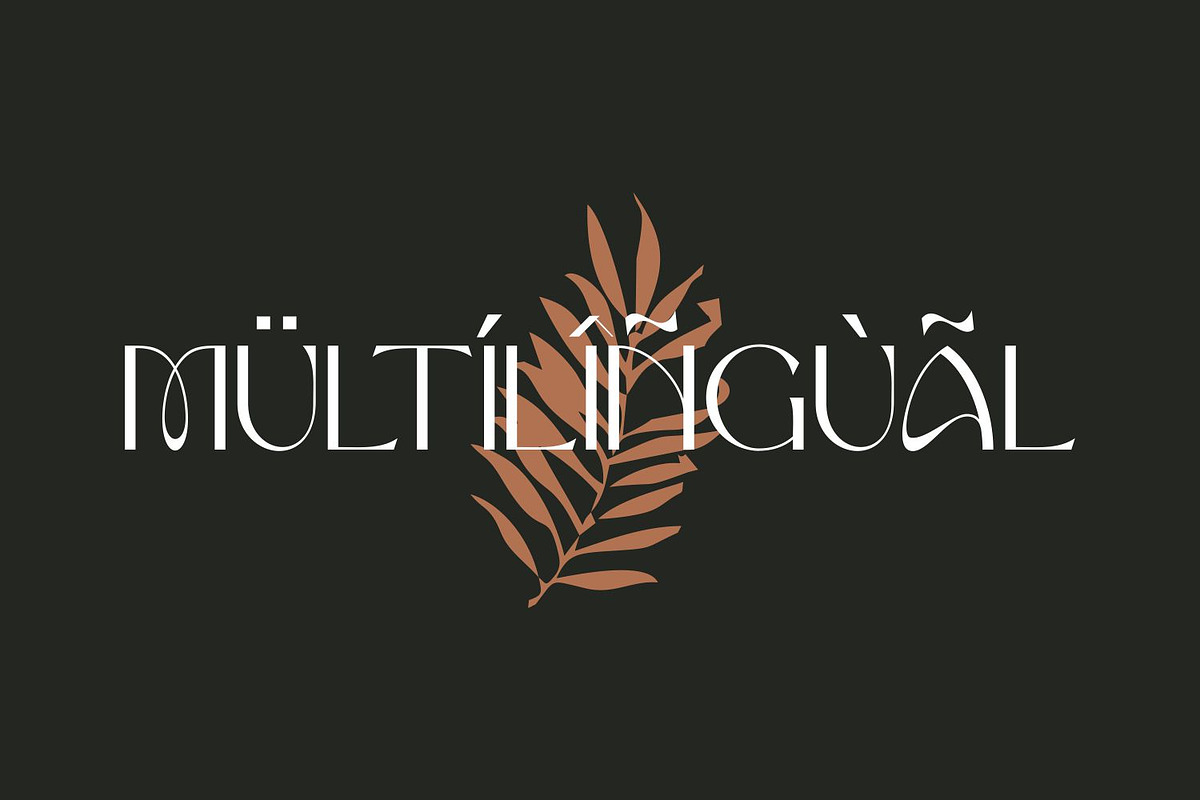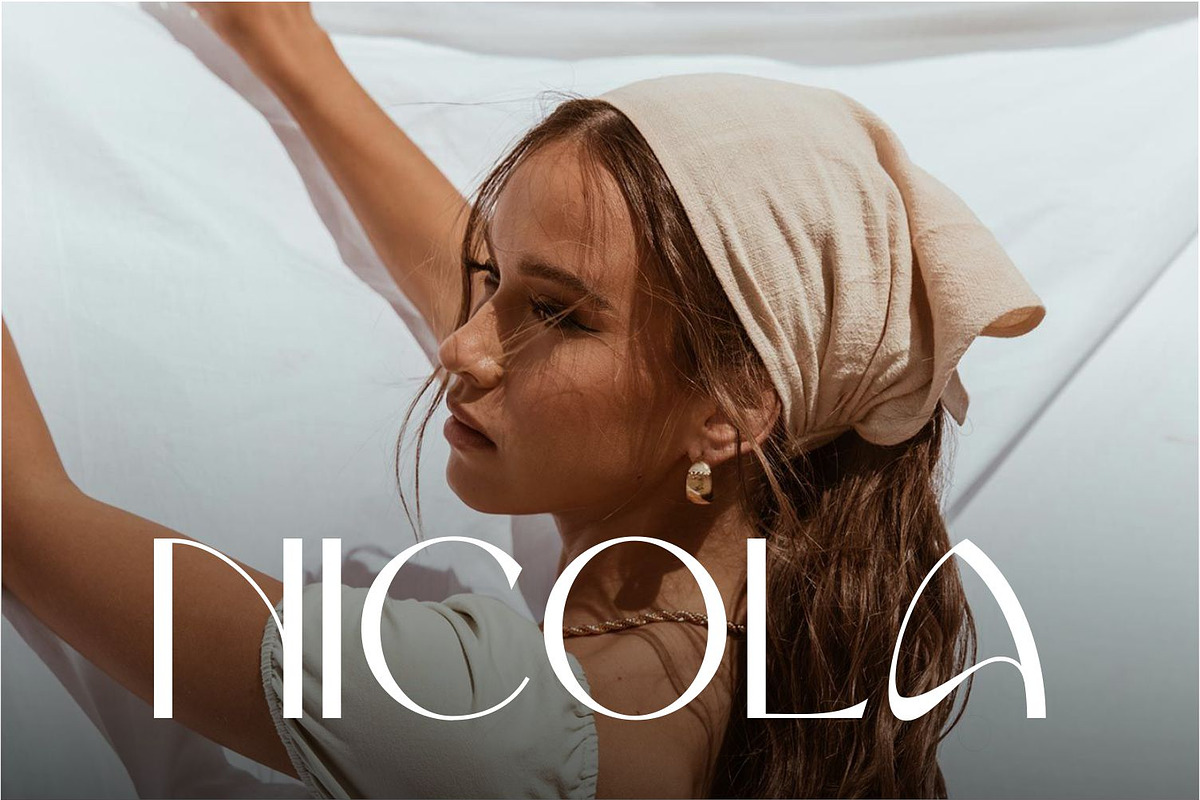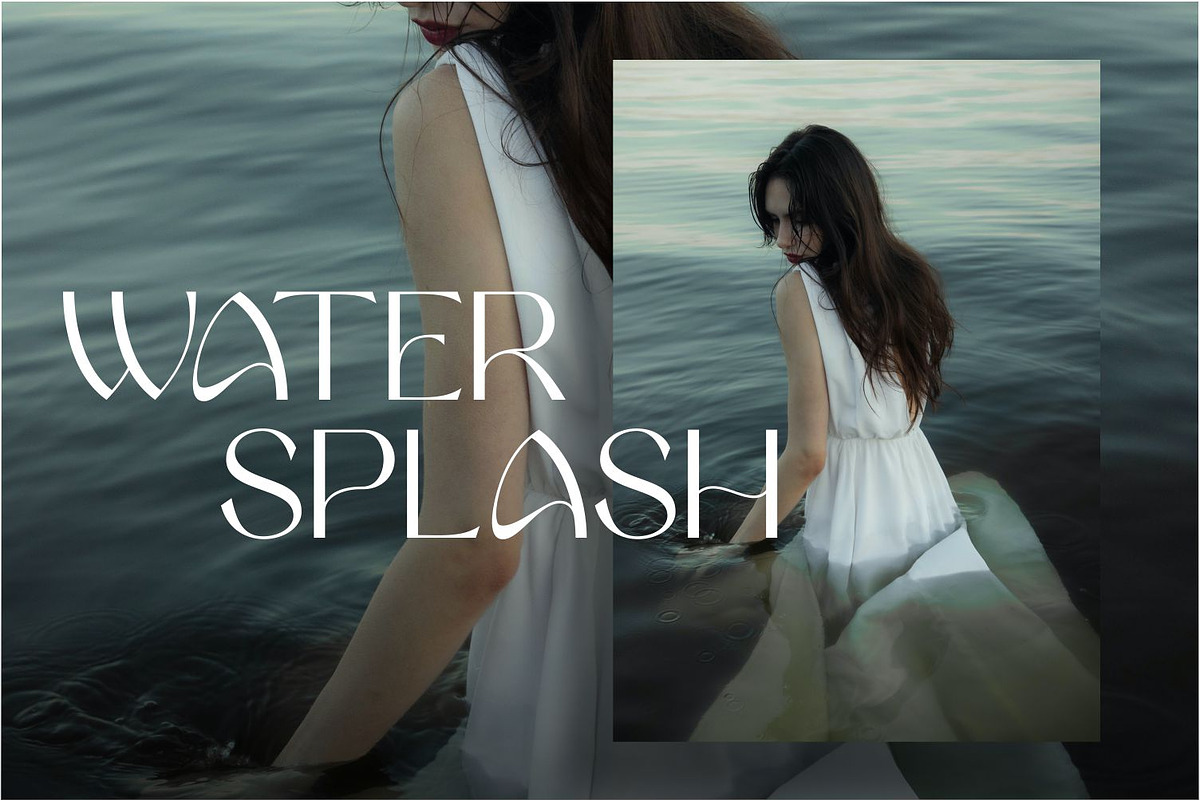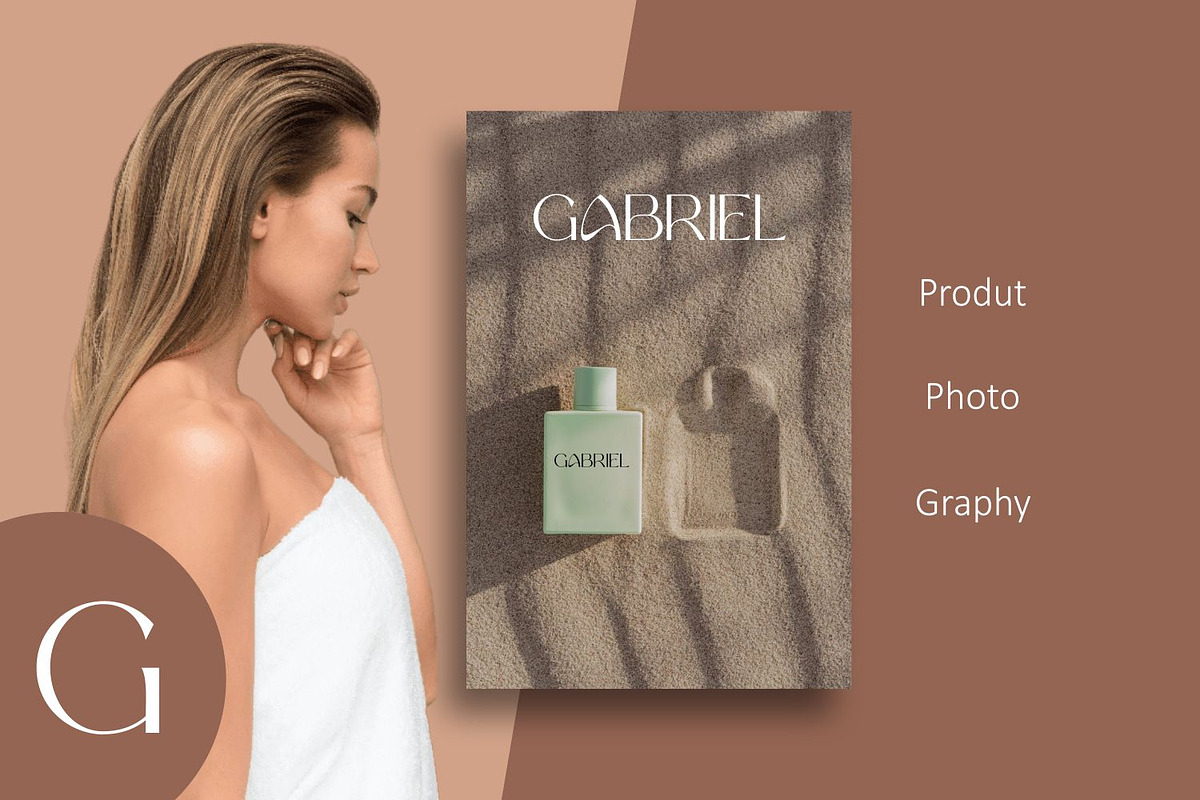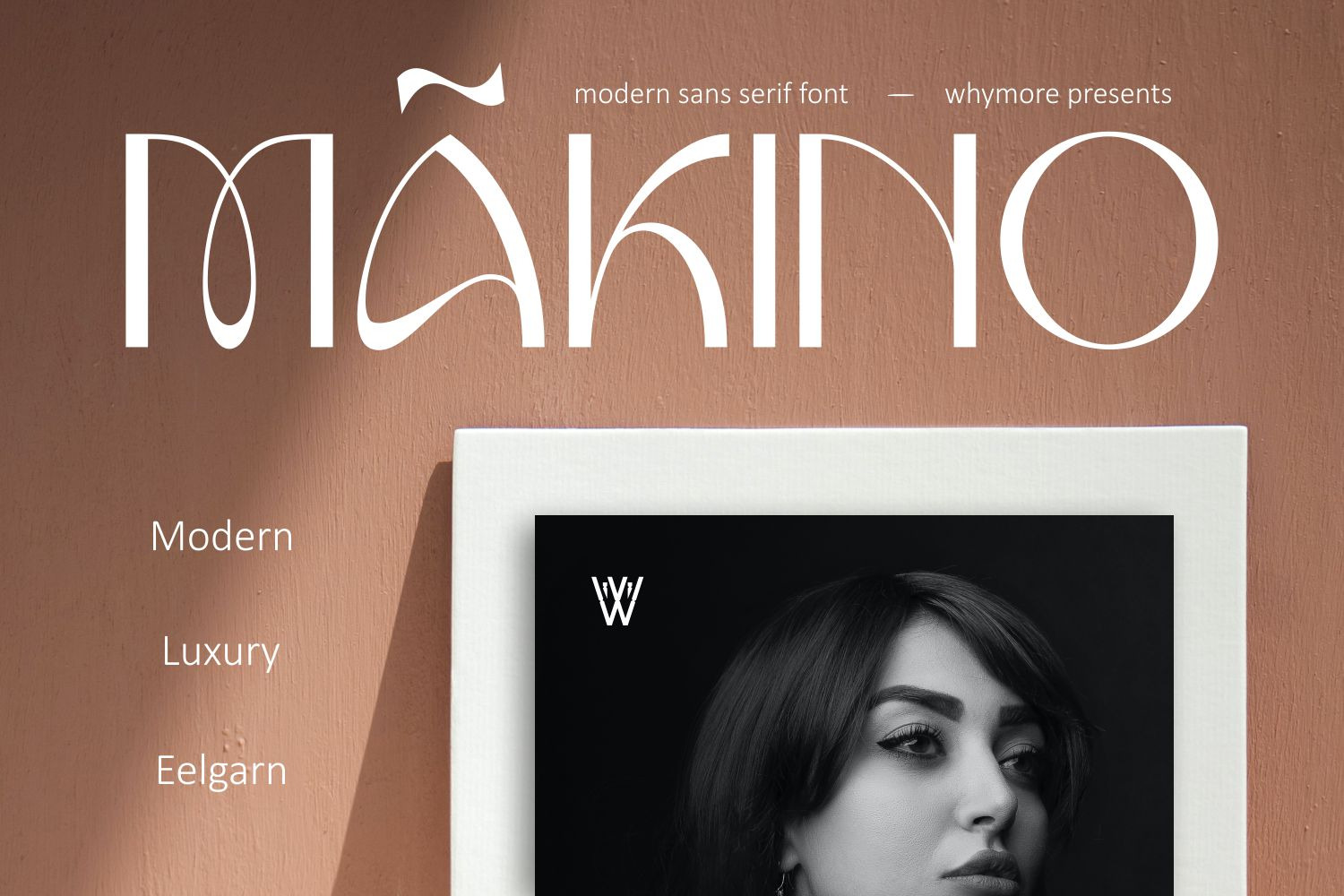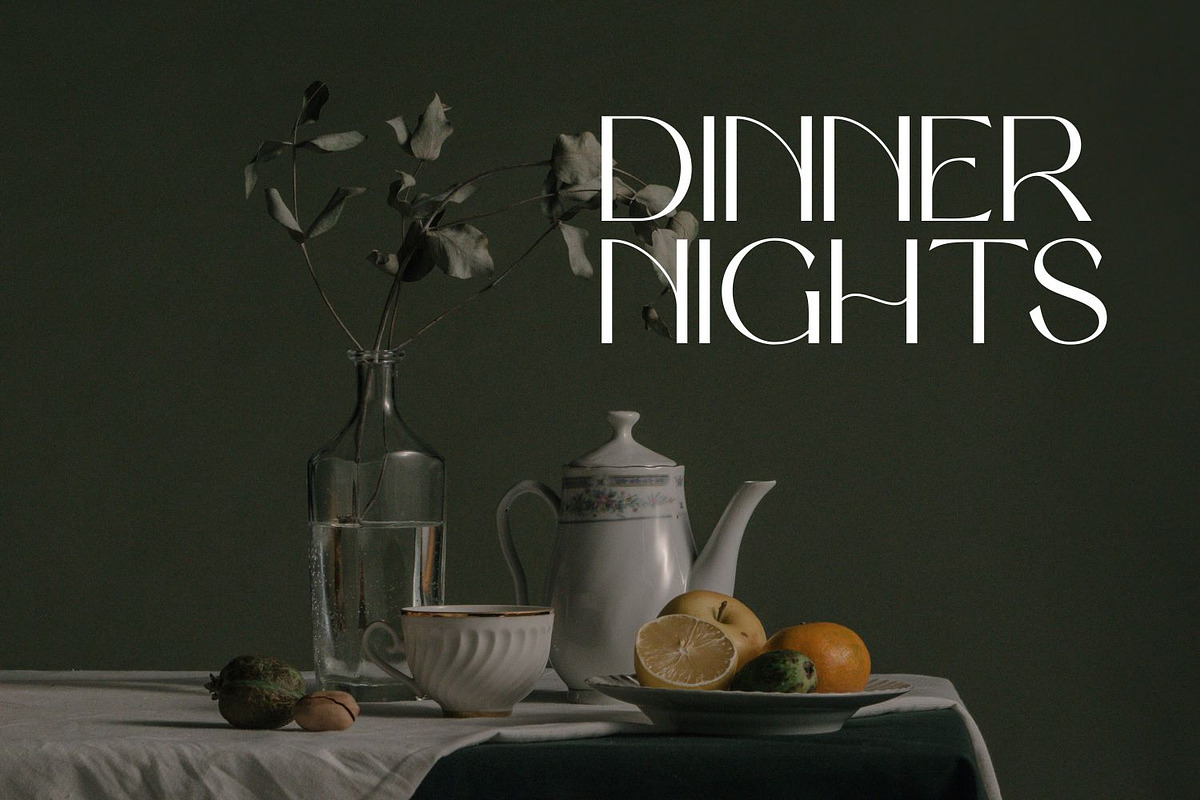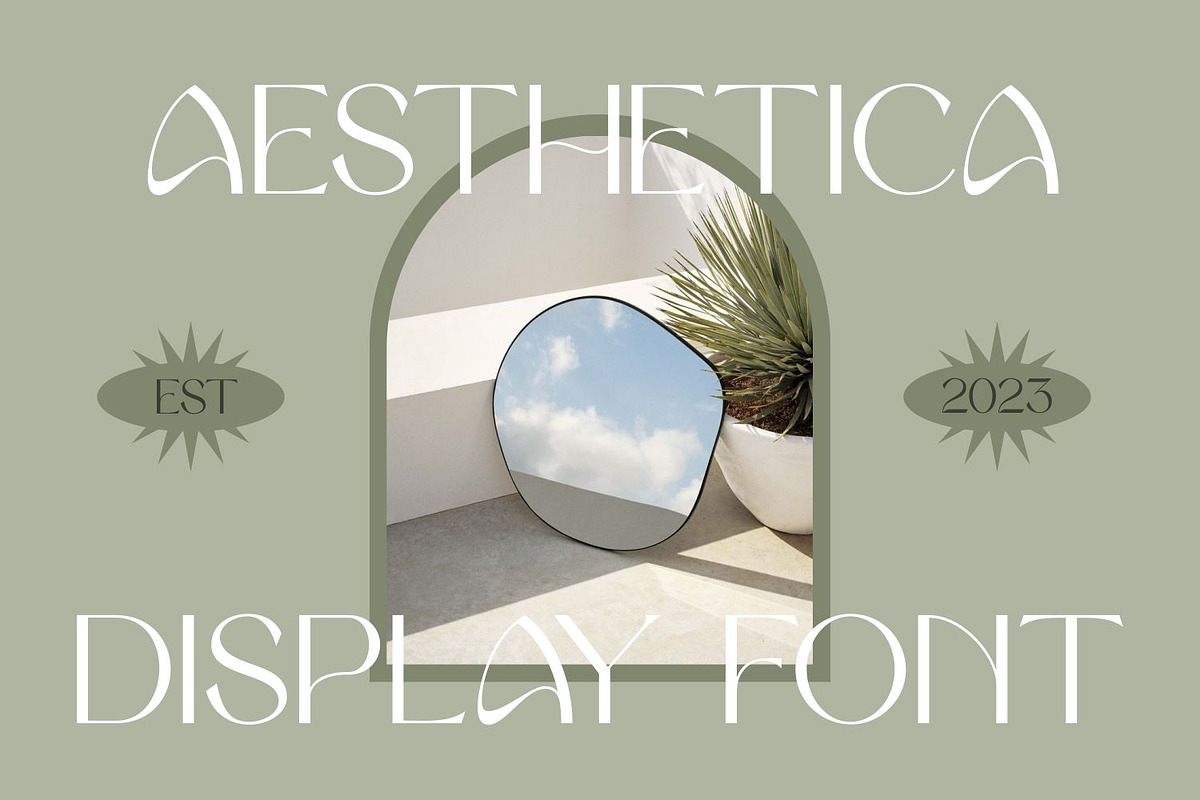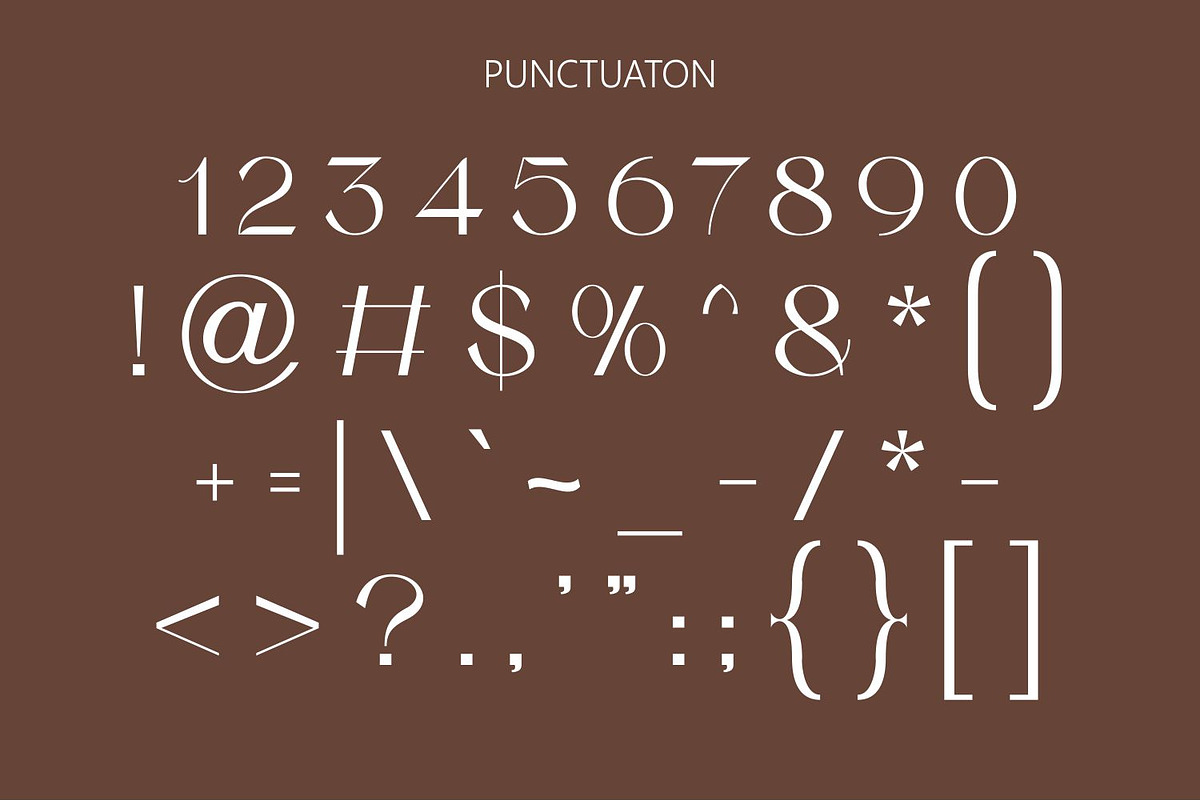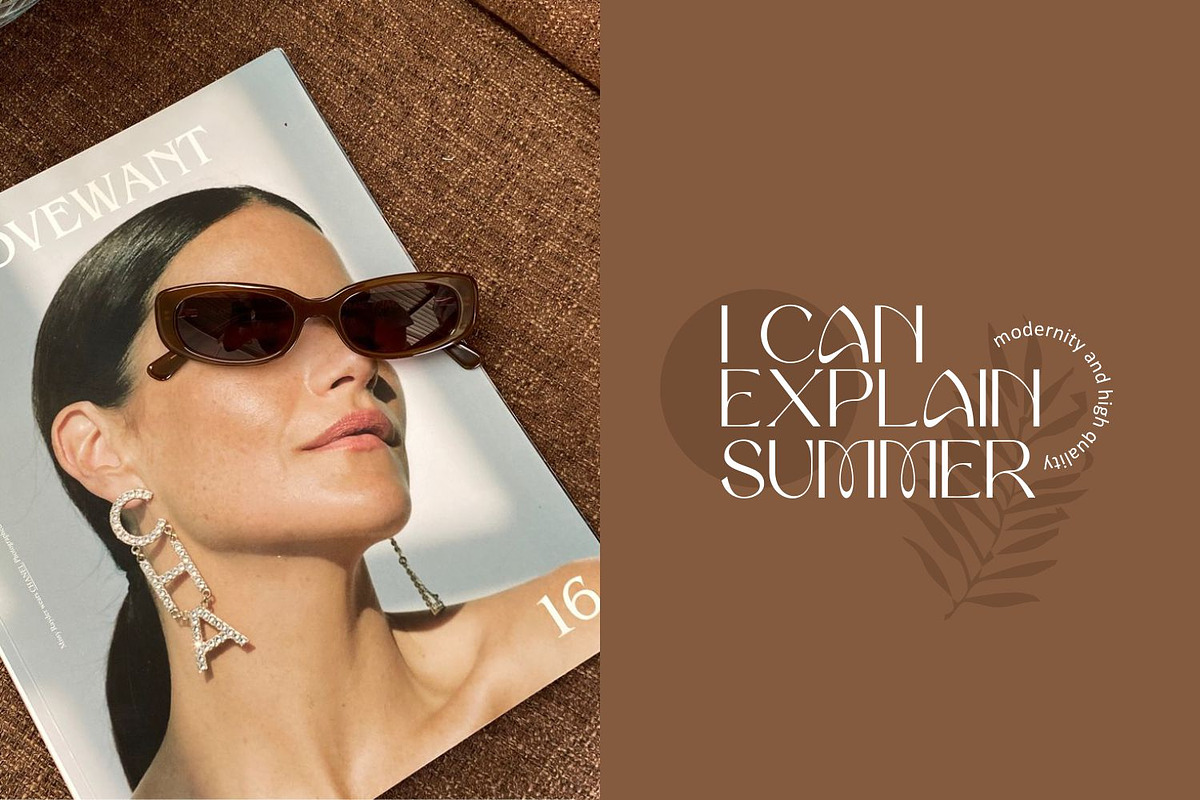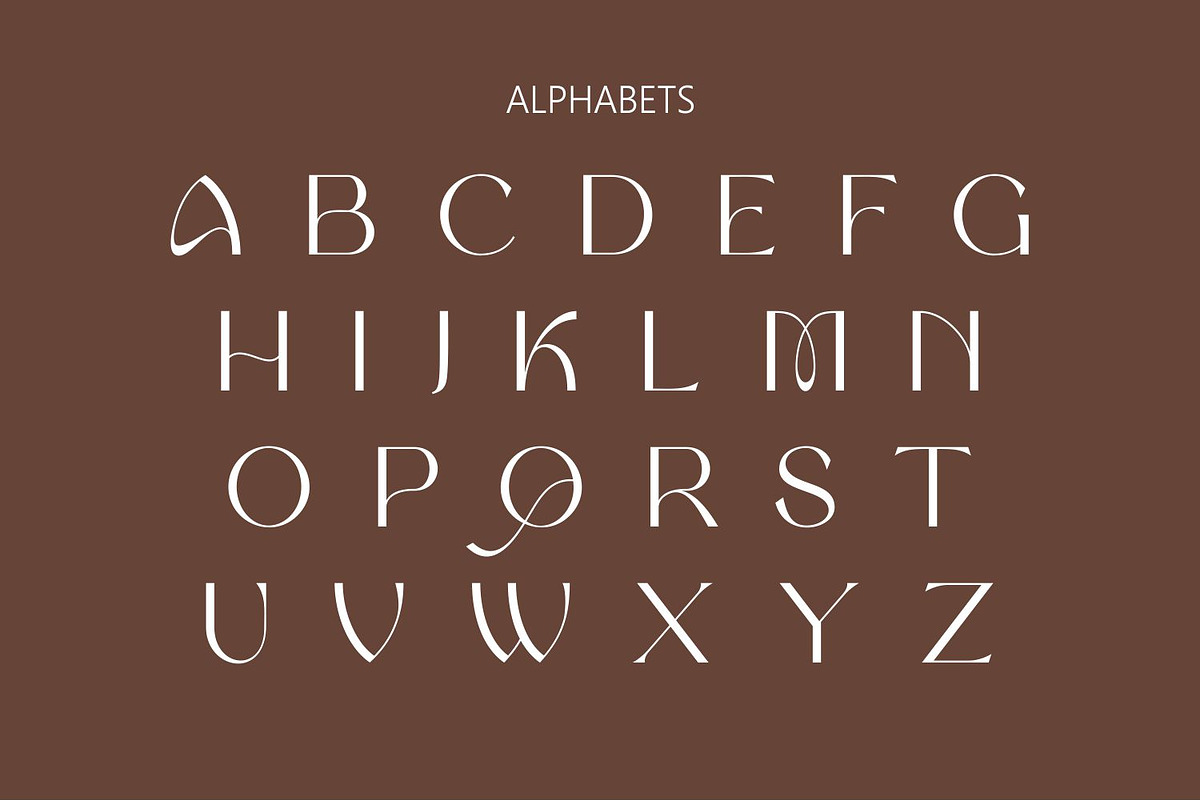
Makino – Beautifull Sans Serif Font
The Makino Font is a beautifully crafted sans-serif typeface that exudes modern elegance and versatility in every stroke. With its clean lines, balanced proportions, and subtle details, this font adds a touch of sophistication to any design project. Whether you’re creating branding materials, website headers, or editorial layouts, the Makino Font brings a sense of refined charm that captivates the viewer. Its versatility and timeless appeal make it suitable for a wide range of applications, ensuring your designs stand out with a touch of contemporary beauty.